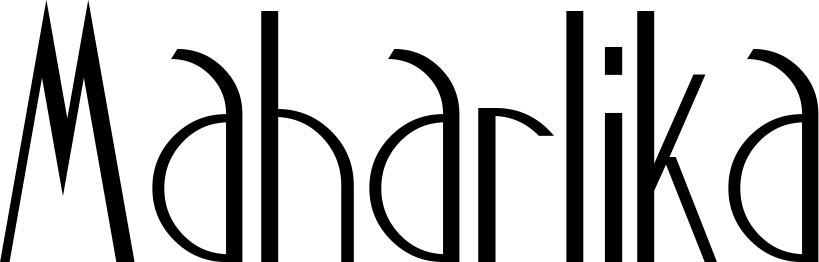
Maharlika Font
This font is an elegant art deco font called Maharlika. It has simple and thin characters and as it has been known, simplicity is the main look of elegance. You can use this American tattoo font for fashion blogs or channel banners, magazines, newspapers, luxury event flyers, cosmetic product introductions, and advertisements.